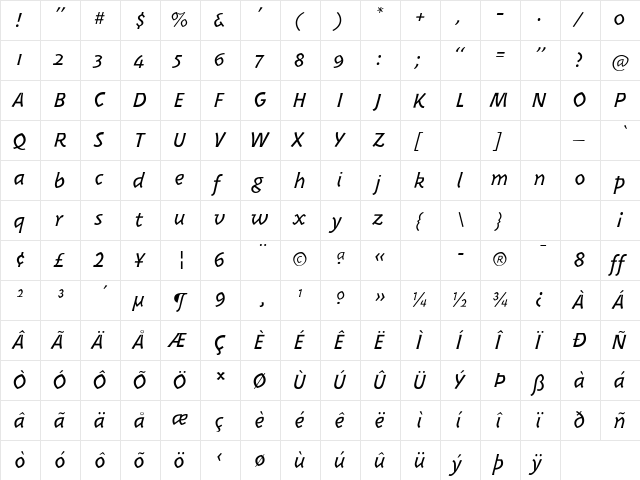
PannikinSSK Italic
Design Context for PannikinSSK Typeface
PannikinSSK offers clean, dependable letterforms without strong stylistic allegiance, making it a practical choice for designers who need flexibility. Its italic angle brings a sense of urgency and motion to the letterforms.
Pro Tip: Try PannikinSSK for annotation and caption copy alongside an upright companion — the contrast in angle creates a dynamic but ordered typographic system.